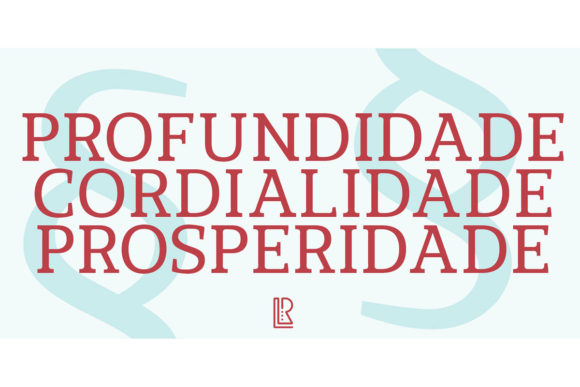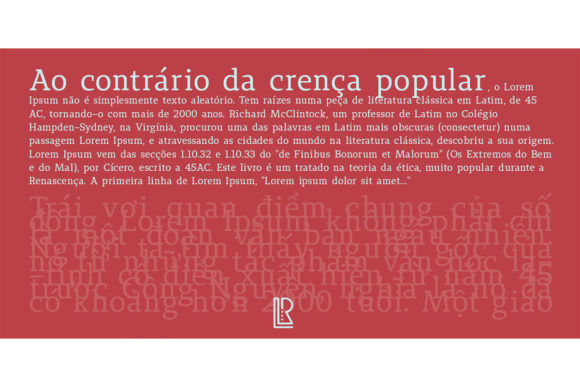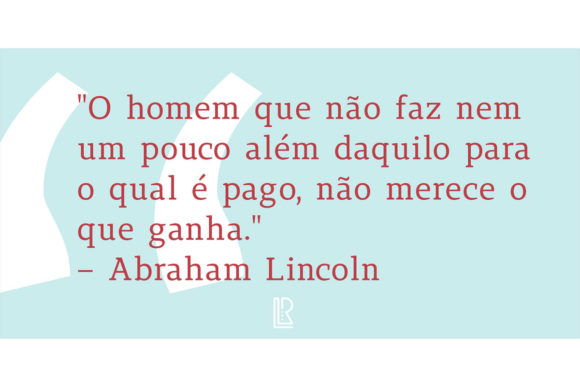
Introduction to Feiris Font
Feiris is a cool and adaptable serif font.
It is suitable for book texts, documentation, business reports, business correspondence, magazines, newspapers, posters, advertisements, multimedia, and corporate design .
Key Features of Feiris Font